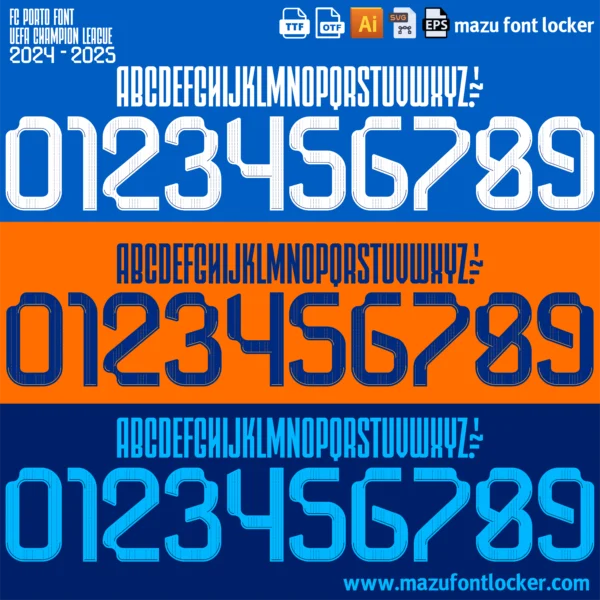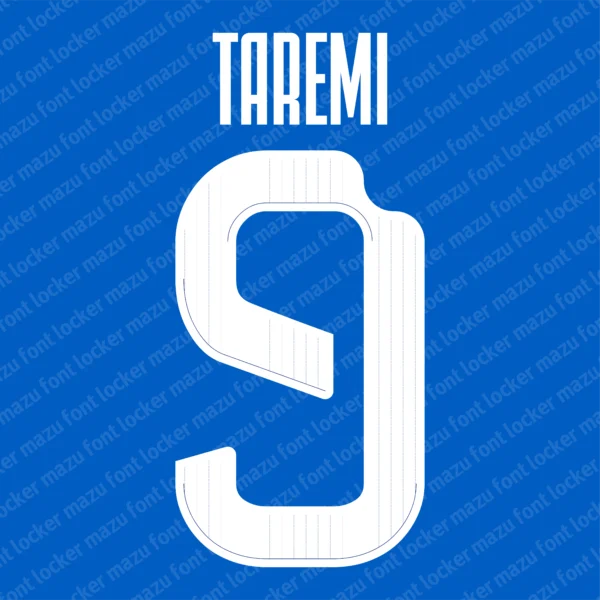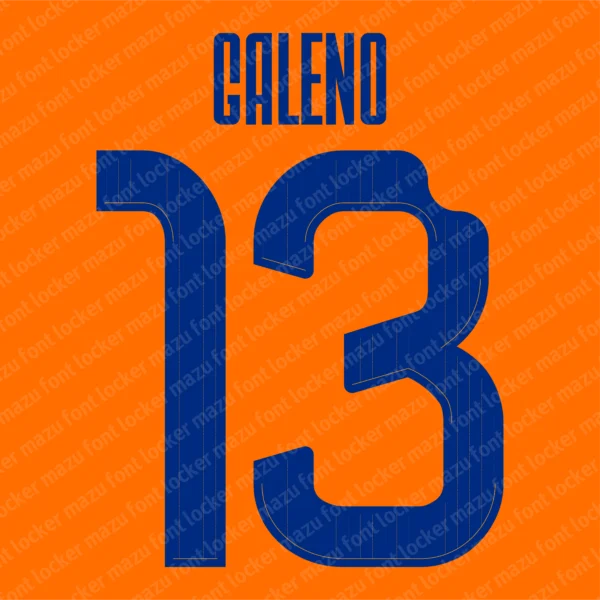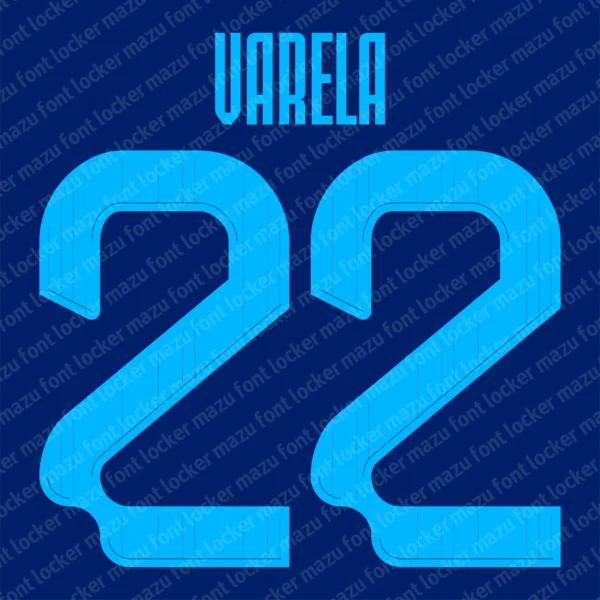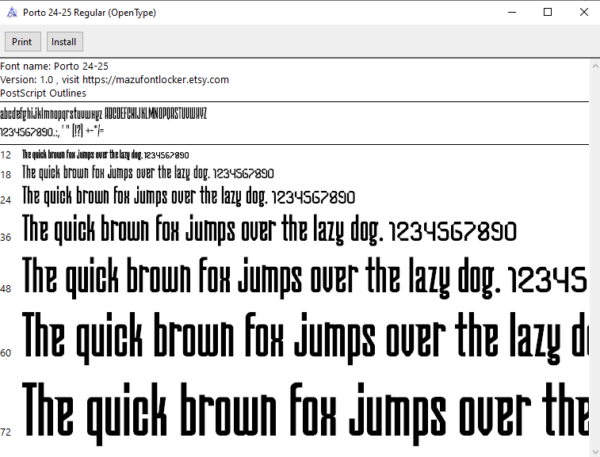
Porto 2024-2025 Font Vector – Incredible Portuguese Giants Vector Kit
Download the Porto 2024-2025 Font Vector (AI, EPS, SVG, PDF, OTF, TTF) and unleash the bold, aggressive, and legendary match typography from FC Porto’s dominant 2024-2025 season. This font captures the iconic Blue & White lettering that drives their warriors on the pitch.
Channeling the fearless Dragões spirit, it features the powerful style worn by stars like Diogo Costa, Pepe, Samu Omorodion, and Evanilson. Perfect for premium jersey mockups, football designs, and true Porto passion.
Porto 2024-2025 Font Vector – Authentic Dragões Typeface
The Porto 2024-2025 Font Vector is a premium typeface that faithfully reproduces the official shirt lettering used by FC Porto throughout the 2024-2025 season. This high-quality vector font perfectly captures the sharp, powerful, and distinctive style that defines one of Portugal’s biggest clubs.
Created for both professional designers and dedicated Porto fans, the Porto 2024-2025 Font Vector is ideal for crafting realistic jersey mockups, supporter merchandise, matchday visuals, social media content, and other creative projects. It pairs excellently with the club’s classic blue and white striped kits.
Why Choose Porto 2024-2025 Font Vector
This font is highly regarded for its precision and character. Each letter and numeral has been meticulously designed to mirror the exact typography featured on the players’ shirts during the 2024-2025 campaign. It delivers that genuine Estádio do Dragão atmosphere to all your football design projects.
The characters in the Porto 2024-2025 Font Vector are strong, condensed, and highly legible. With clean lines and a bold presence, the typeface maintains excellent readability while projecting the strength and pride associated with the Dragões.
The numbers feature solid, athletic proportions with sharp edges and balanced spacing, ensuring they look professional and commanding both on digital screens and printed materials.
• Complete uppercase A–Z and numbers 0–9 in authentic Porto 2024-2025 style
• Special FC Porto crest glyph for accurate shirt number detailing
• Features the precise crest placement used beneath player numbers